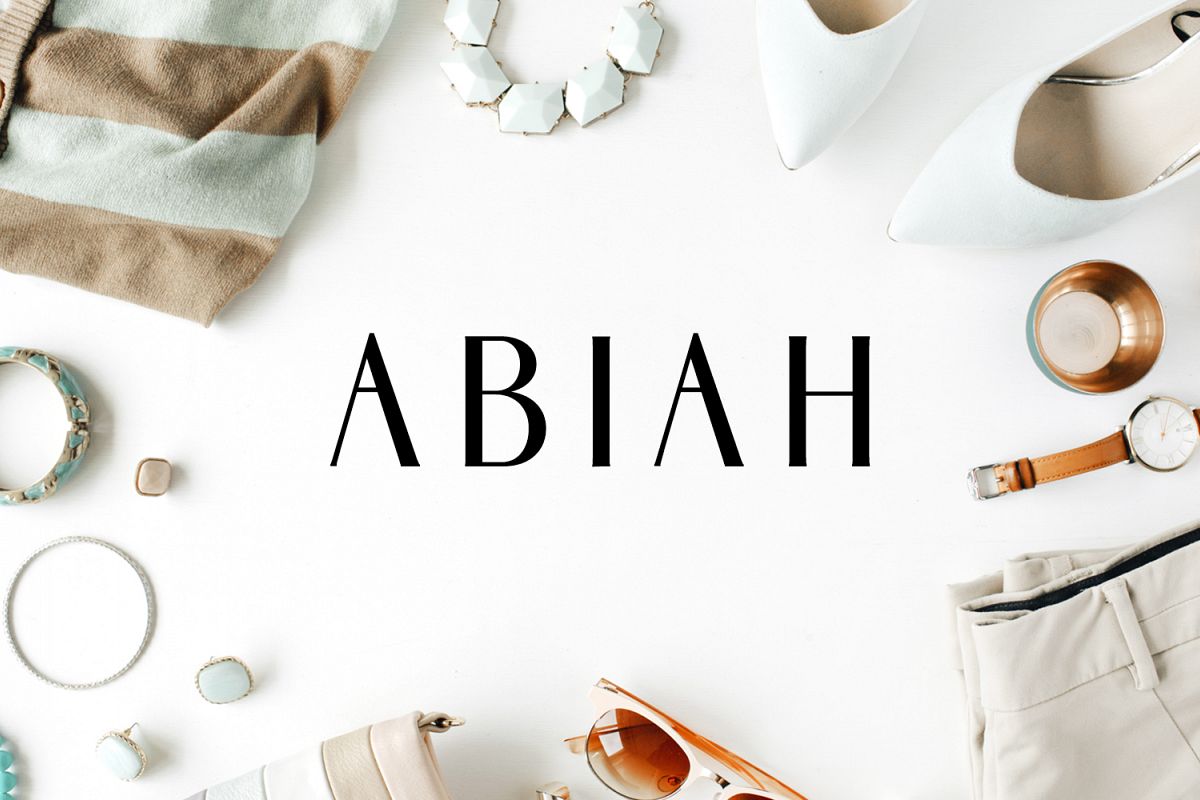
Abiah Sans Serif Font Family Pack
Abiah is a minimal sans serif font, which contains 5 weights and It features unique and modern sans serif look and feel. Perfect for gorgeous logos, titles, web layouts and branding. It looks gorgeous in all caps with a wide-set spacing if you want to try a classy look, or beautiful on its own in capital and lowercase letters for something completely timeless.
• Font Weight: Regular, Thin, Light, Bold and Distorted
Abiah Font Features:
• Uppercase Multilingual Letters
• Lowercase Multilingual Letters
• Non English Characters ( Latin Supplement + Latin Extended A)